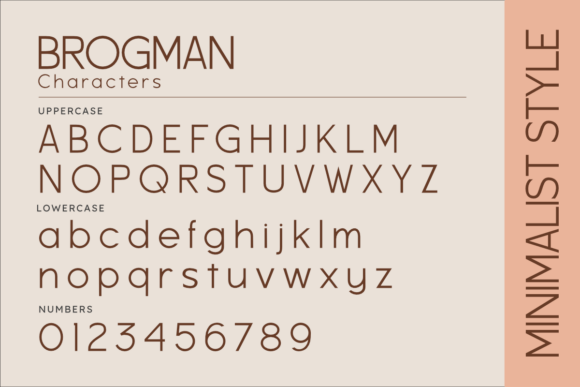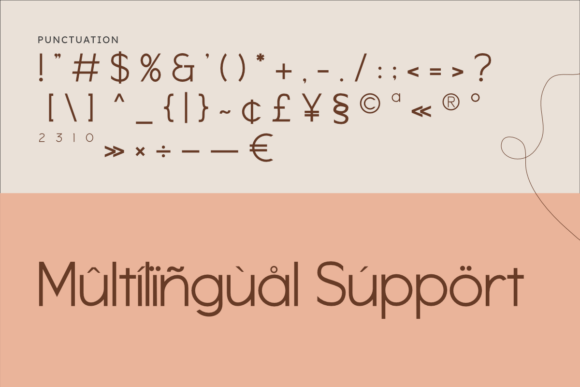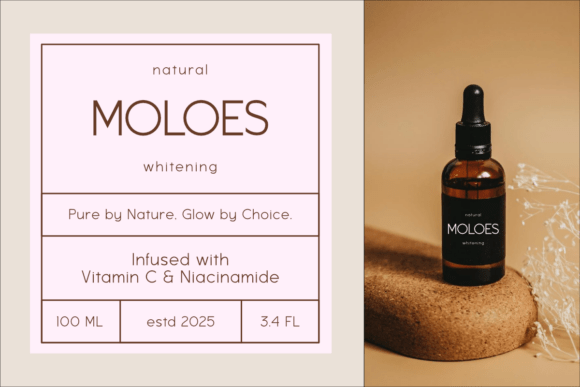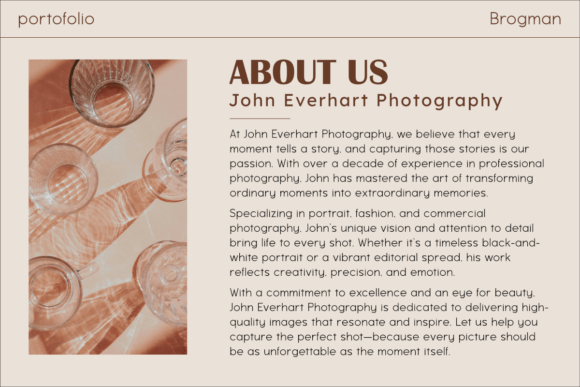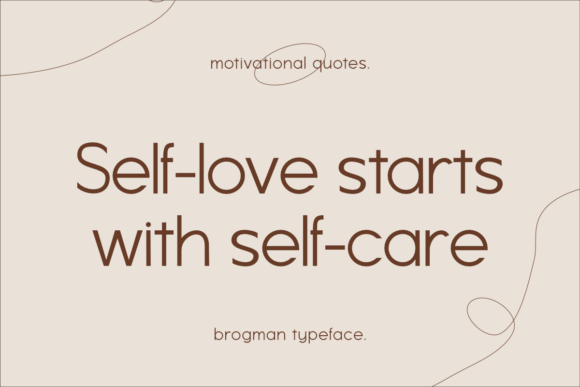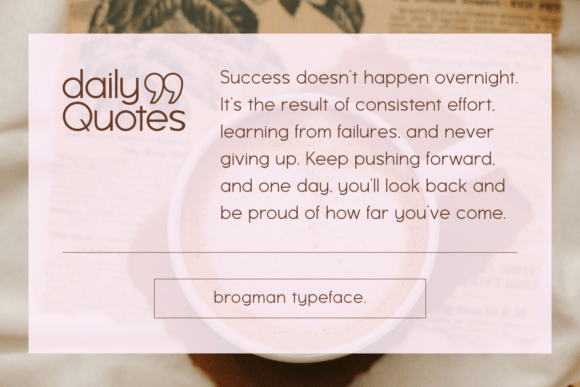
Brogman Font: Elevate Your Designs with Elegant Minimalism
In the world of typography, a well-crafted font can make all the difference in elevating a design from ordinary to extraordinary. Introducing Brogman, an elegant minimalist sans serif typeface that embodies sophistication and refinement. Designed to bring a touch of understated beauty and clarity to various design applications, Brogman is the perfect choice for designers and crafters seeking a modern, sleek look.
The Essence of Brogman: Clean Lines and Balanced Proportions
Brogman’s design is characterized by clean lines, balanced proportions, and a subtle modern touch. This harmonious blend of elements makes the font incredibly versatile, suitable for a wide range of applications, from corporate branding and editorial content to high-end packaging and web design. The font’s minimalist approach ensures that it remains unobtrusive, allowing the content to take center stage while maintaining a contemporary aesthetic.
Unparalleled Versatility: Where to Use Brogman
Brogman’s adaptability is one of its most notable features. Its elegant simplicity makes it an excellent choice for:
- Corporate Branding: Establish a sophisticated brand identity with Brogman’s refined and professional look.
- Editorial Content: Enhance the readability and visual appeal of articles, magazines, and newspapers with Brogman’s clean and modern design.
- High-End Packaging: Add a touch of luxury to product packaging with Brogman’s elegant and understated beauty.
- Web Design: Create a seamless user experience with Brogman’s clarity and responsiveness, perfect for websites and digital applications.
The Benefits of Using Brogman
Brogman offers several benefits that make it an attractive choice for designers and crafters:
- Readability: Brogman’s carefully crafted letterforms ensure excellent readability, even at smaller font sizes.
- Timeless Simplicity: Brogman’s minimalist design ensures that it remains relevant and stylish, even as design trends evolve.
- Elegance: Brogman’s refined aesthetic adds a touch of sophistication to any design, making it perfect for high-end applications.
Why Choose Brogman for Your Designs?
In a world where typography plays a crucial role in shaping brand identities and user experiences, Brogman stands out as an exceptional choice. Its elegant minimalist design, versatility, and readability make it an excellent addition to any design project. By choosing Brogman, designers and crafters can:
- Elevate their designs with a sophisticated and refined aesthetic.
- Enhance the readability and visual appeal of their content.
- Create a lasting impression with a timeless and elegant font.
Brogman is more than just a font – it’s a design solution that offers elegance, versatility, and clarity. Whether you’re a designer, crafter, or simply someone who appreciates beautiful typography, Brogman is an excellent choice for any project where a sophisticated and modern look is desired. Enhance your designs with the timeless simplicity and grace of Brogman, and experience the difference that exceptional typography can make.
Discover the world of possibilities with Brogman, and unlock the full potential of your designs.